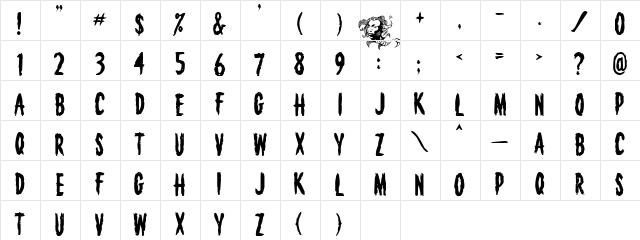
Deathknell Regular
Design Context for Deathknell Typeface
Deathknell carries an unsettling edge — its distorted letterforms are built to unsettle, perfectly suited to horror, Halloween, and dark creative work.
Ideal for Halloween projects, horror film titles, haunted house signage, and dark editorial design.
Font Pairing: Pair with a clean neutral sans-serif for body copy to let Deathknell's character lead without overwhelming the composition.
Pro Tip: Deathknell works best as a headline or focal element. Pair it against plain, neutral body text to amplify the contrast.